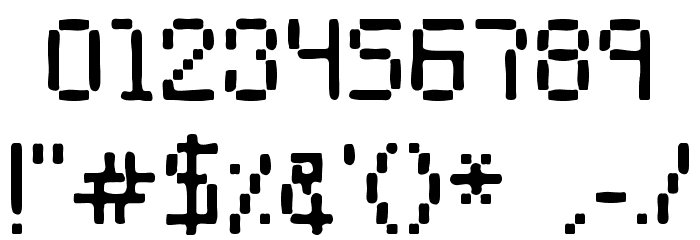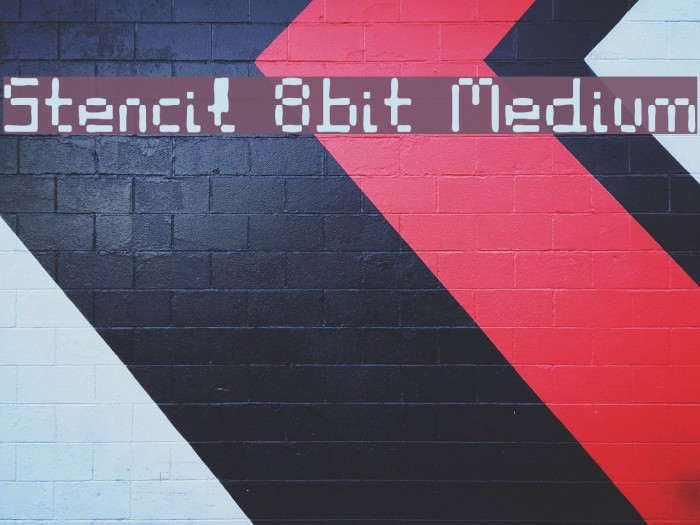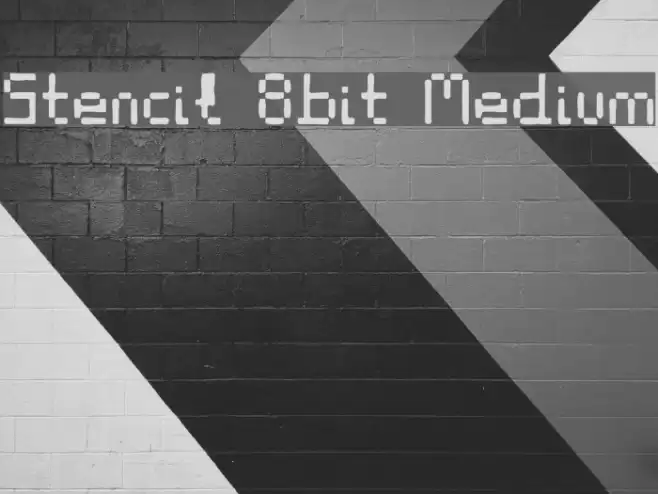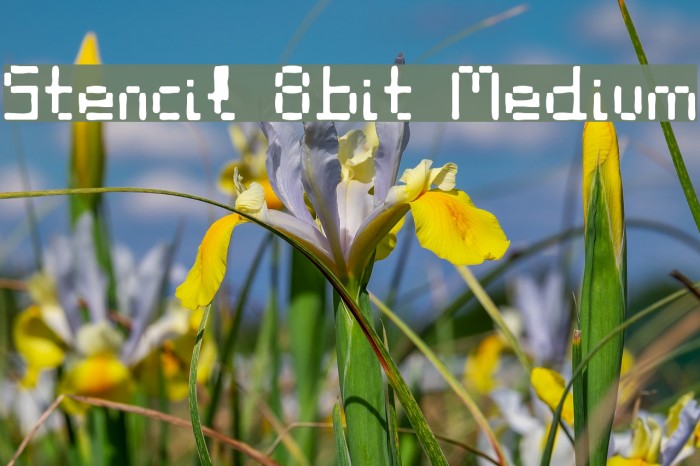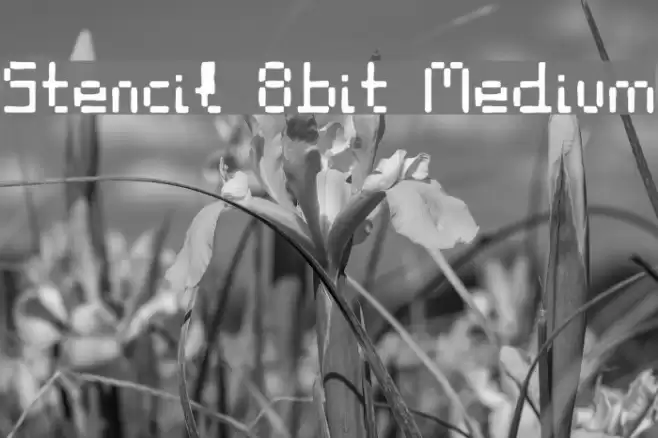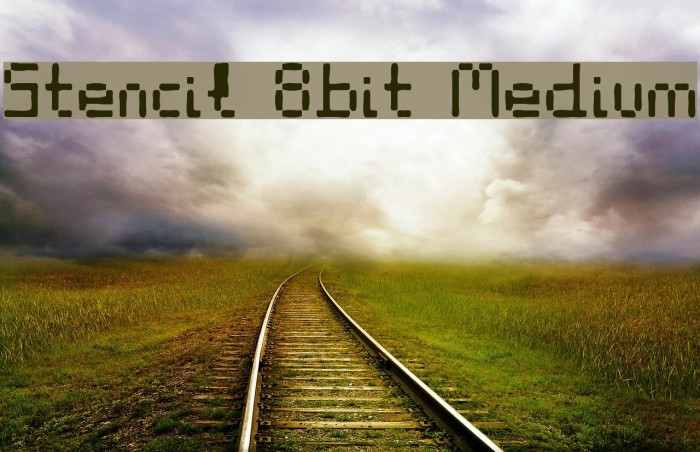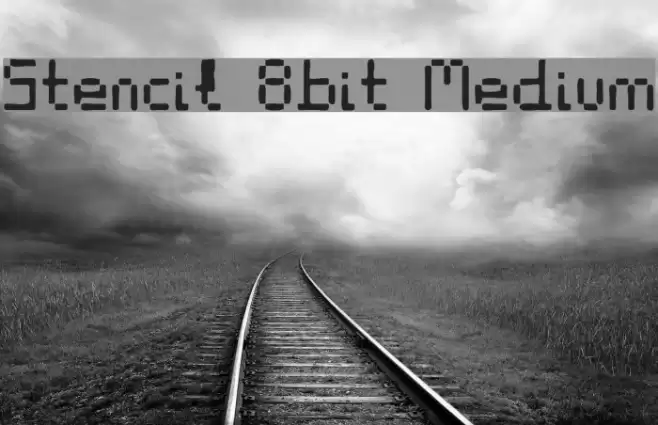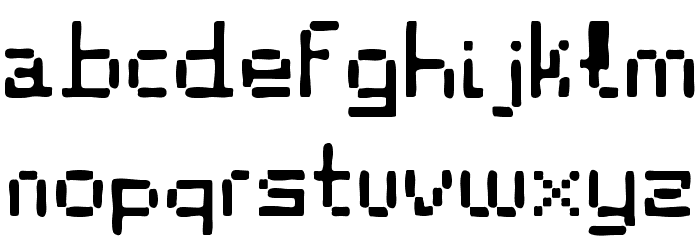
Stencil 8bit Medium Font
Stencil 8bit Medium Description
This font features a bold, stencil-like design with a distinct 8-bit aesthetic, reminiscent of retro video games. Each character is composed of blocky, pixelated shapes, creating a digital and mechanical feel. The uppercase and lowercase letters maintain a consistent style, with rounded edges and uniform spacing. Numbers and special characters follow the same design principles, ensuring a cohesive look across all glyphs. The font's unique appearance makes it ideal for projects that require a vintage or tech-inspired theme.
| Overall Style | Retro, Digital, Mechanical |
| Proposed Projects | Ideal for video game designs, tech-themed posters, retro branding, and digital art projects. |